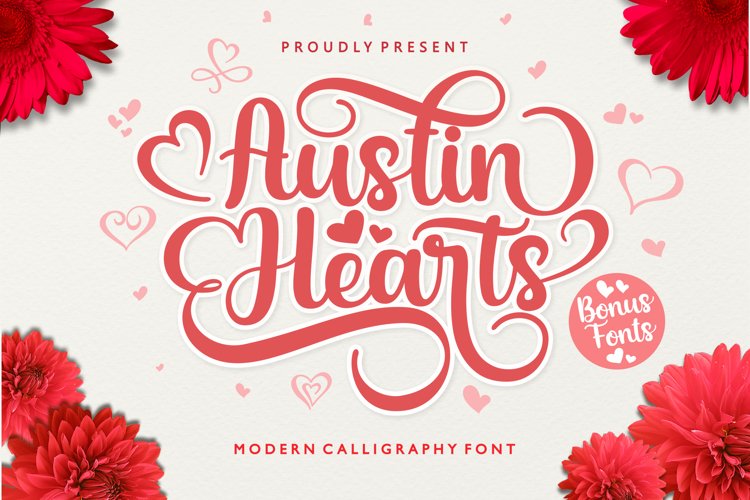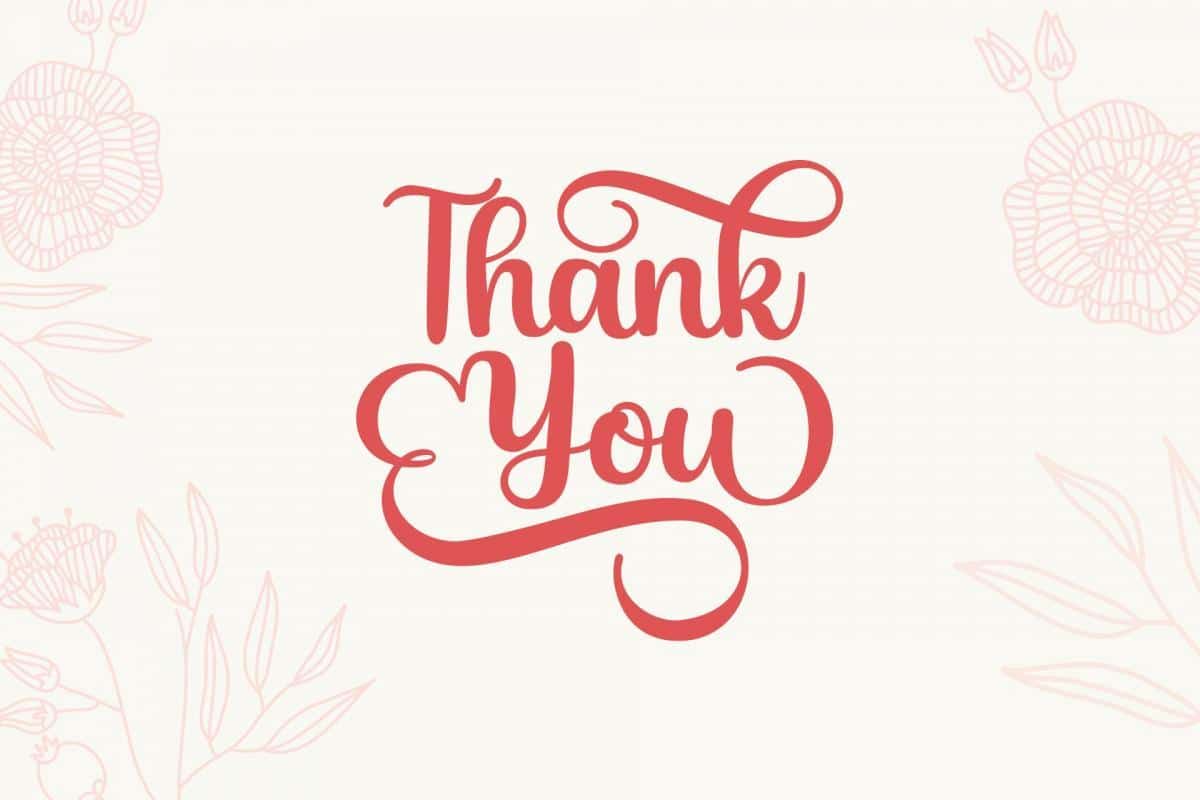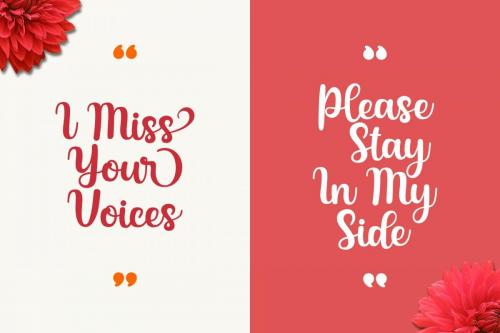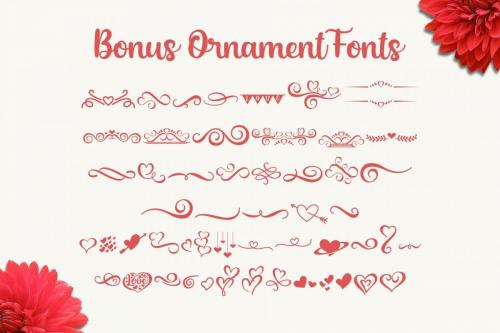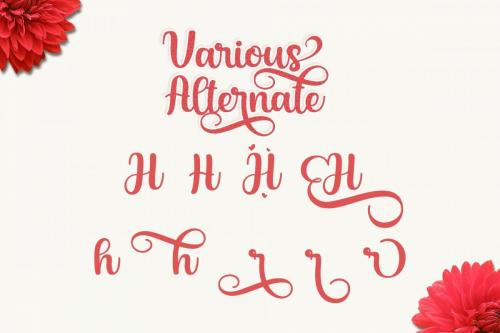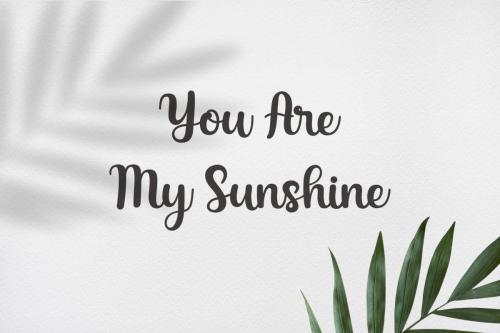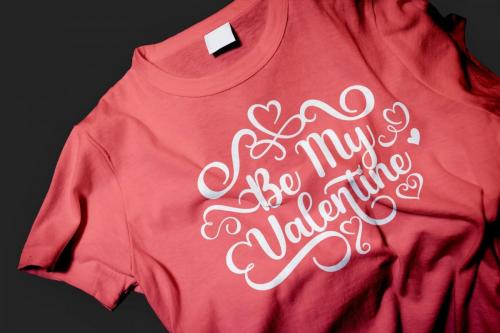
Austin Hearts Calligraphy Font is an incredibly stunning script with beautiful letters and extravagant swashes.
Austin Hearts is perfect for use in title designs such as clothing, invitations, title books, stationery designs, quotes, branding, logos, greeting cards, t-shirts, packaging designs, posters, and more.